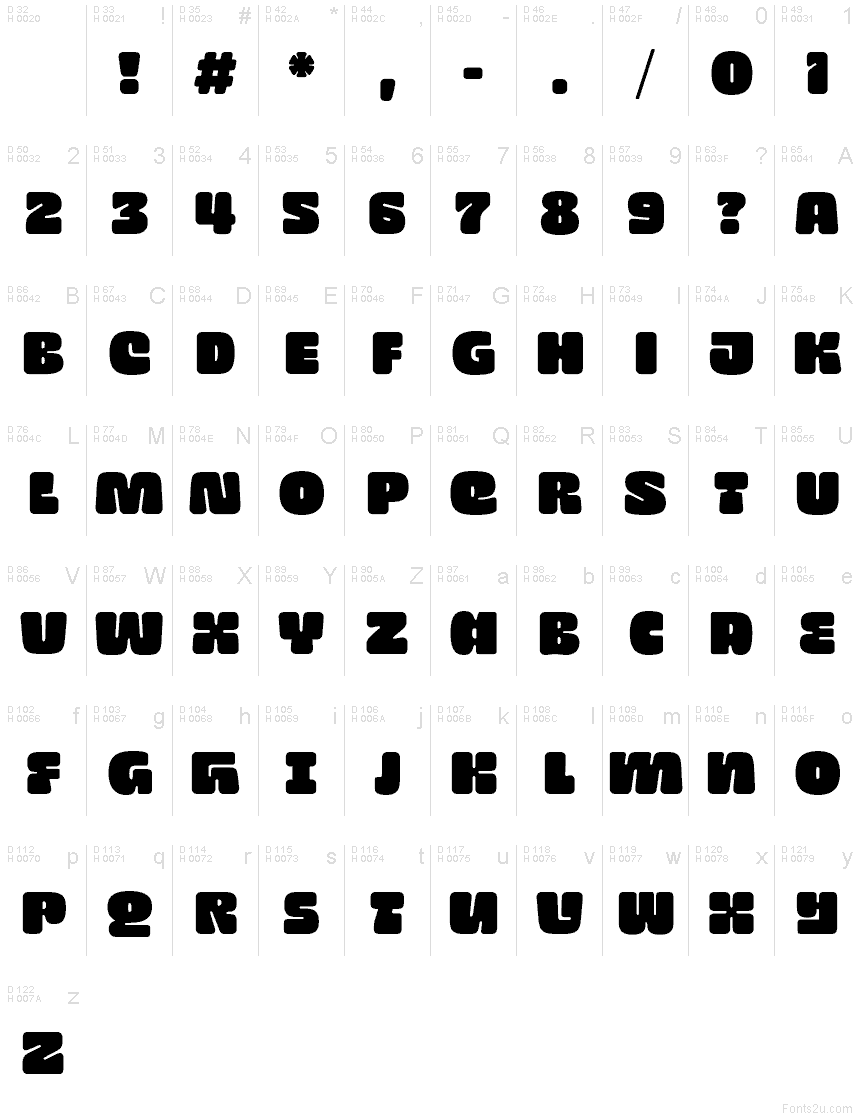
SG Noxville Regular DEMO
SG Noxville font by Studio Gulden is a free groovy display typeface with big, pillowy letters that look almost airbrushed. Each form swells into rounded corners and chunky silhouettes, creating a juicy, ink-heavy rhythm that instantly pops in a crowd. The weight feels confident and bouncy at once, with soft edges that read friendly rather than shouty.
Using SG Noxville, headlines gain a plush, retro punch that shines on festival posters, album covers, streetwear branding, burger joint menus, stickers, and bold packaging. This free font likes space—add a hint of letterspacing and set it large. For body copy, pair it with a clean, understated sans to keep the message clear.